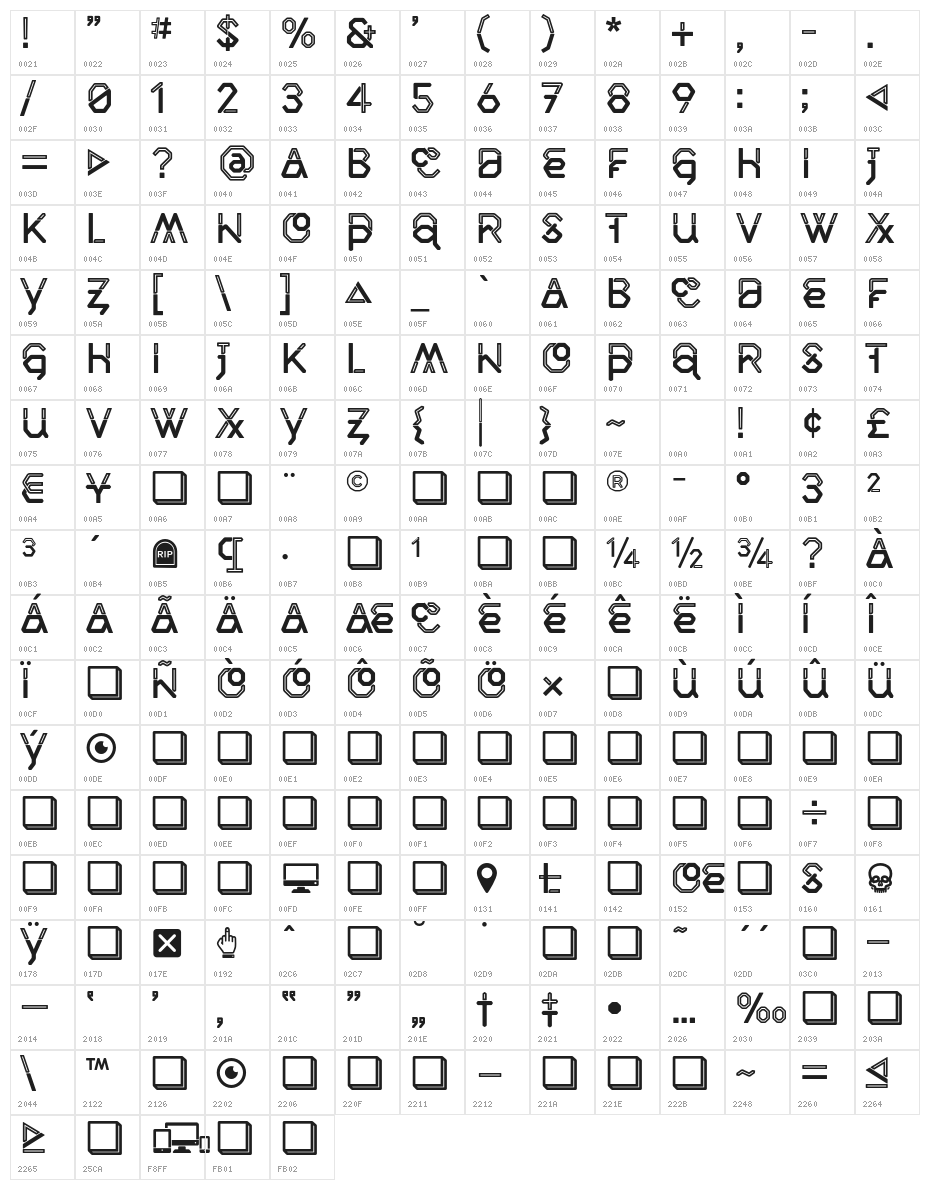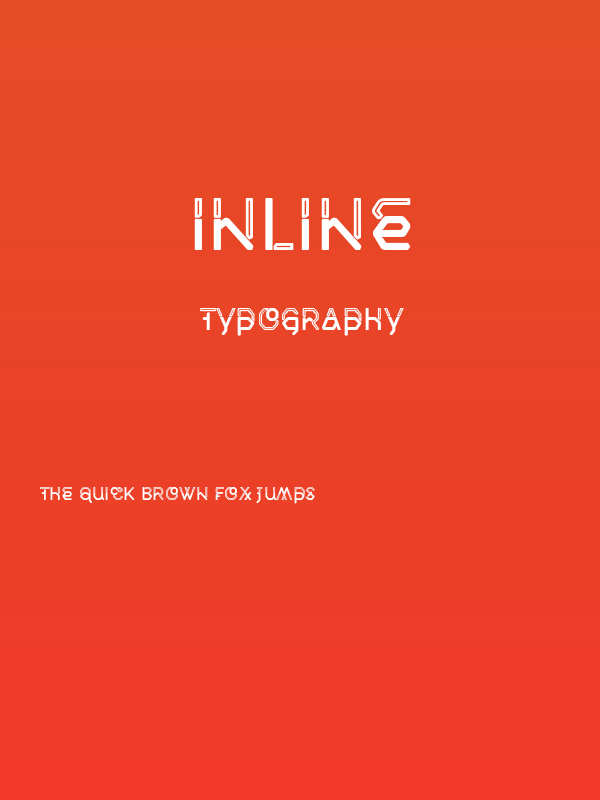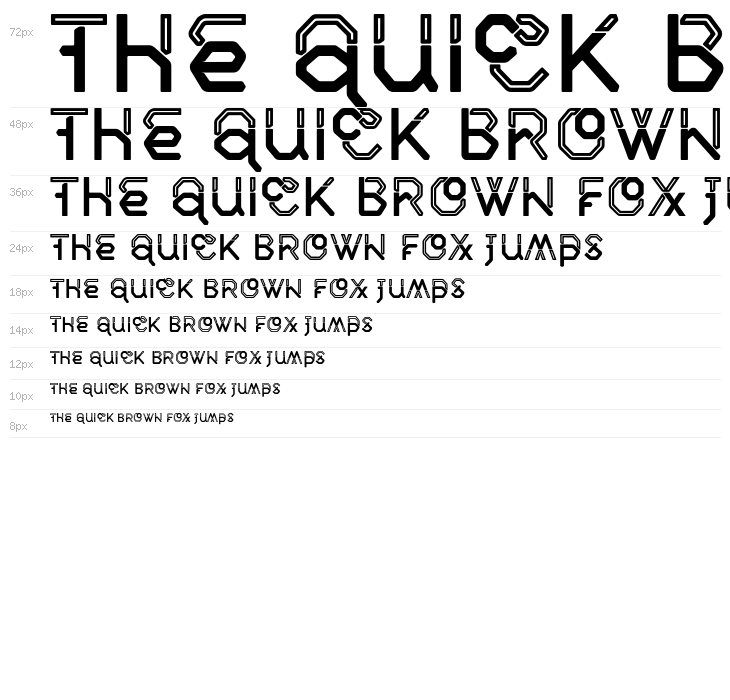
Inline Font
Inline Description
This font features a bold, geometric design with a futuristic and industrial feel. The characters are constructed with angular lines and sharp edges, creating a sense of precision and modernity. The uppercase and lowercase letters maintain a consistent style, with unique cutouts and negative spaces that add visual interest. Numbers and special characters follow the same design principles, ensuring a cohesive look across all text elements. The font's distinct style makes it stand out, suitable for projects that require a strong visual impact.
| Proposed Projects | Ideal for technology branding, sci-fi themed projects, video game titles, and modern poster designs. |